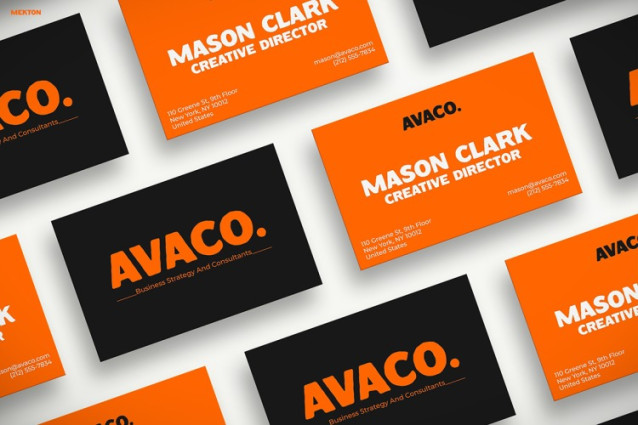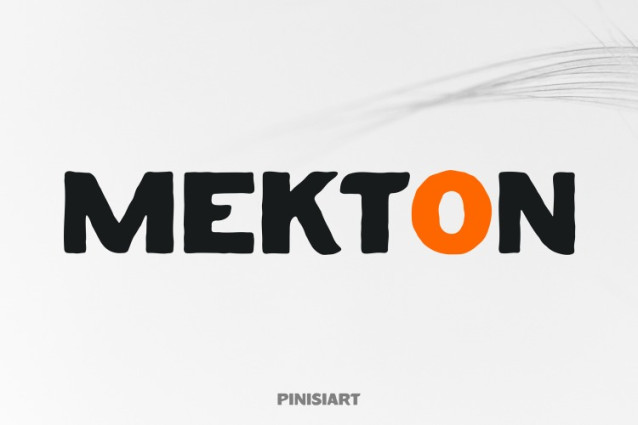
Mekton Font
MEKTON Font is a bold sans-serif typeface that blends retro charm with a clean, contemporary finish. It’s designed with geometric precision and strong visual weight, offering excellent readability and timeless appeal. Moreover, its structured shapes and balanced proportions make it a standout option for branding, editorial work, and digital interfaces. While its design feels rooted in modernist tradition, it still brings a fresh and innovative presence to any layout.
As seen in the visuals, MEKTON thrives in both display and functional settings. For example, the “SHAPE. SPARK.” and “UNITED TYPE” compositions show how well the font commands attention in headline roles. In addition, the uppercase letterforms and consistent spacing provide a rhythm that enhances readability at a glance. On business cards like “AVACO” and “MASON CLARK,” the font communicates professionalism with a stylish edge. Meanwhile, in signage such as “ARCADIA URBAN STAY,” MEKTON ensures clarity even from a distance.
Furthermore, MEKTON adapts seamlessly to editorial and event-based content. The “MUSEUM OF FORMS” layout proves it can handle structured information while remaining visually appealing. As a result, it’s a great asset for museums, galleries, or cultural campaigns. Not only does it suit promotional materials like “TLINE.PRO,” but it also performs beautifully on screens, as the “MADE FOR SCREENS” sample highlights.